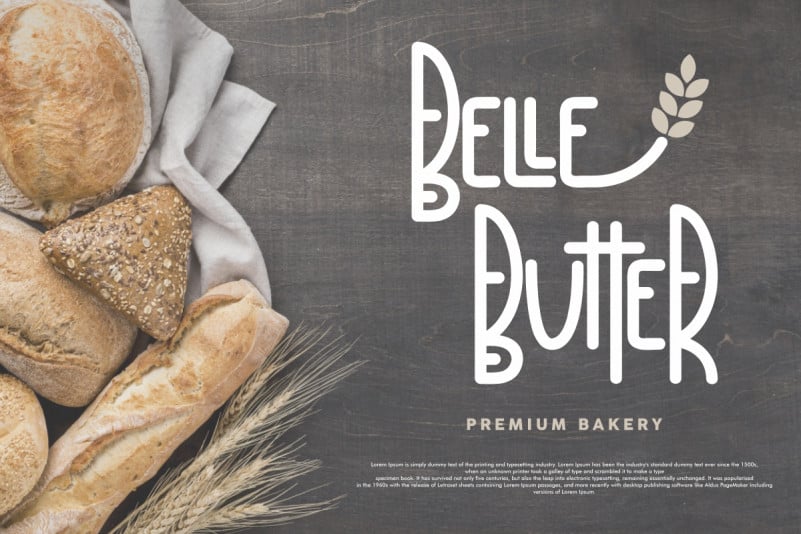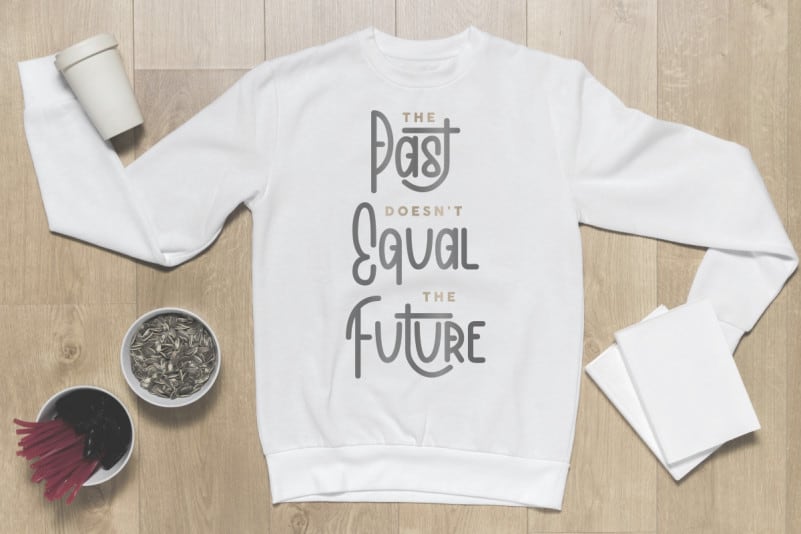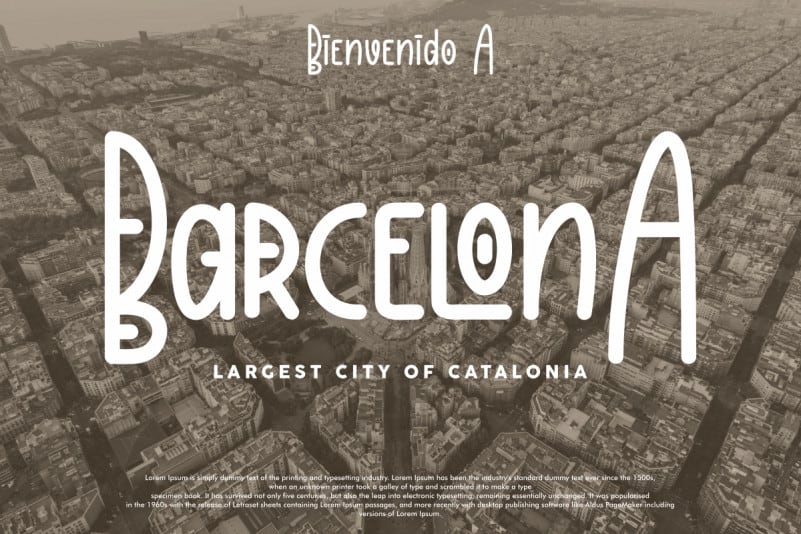
Peanuth Handwritten Font
Peanuth Handwritten Font is a vintage display font with a unique retro style. This font is crafted carefully in every its single scratch, created to look as close to a natural handwritten script so that it can create the perfect combination on each glyph. The characters style of this font is inspired from old centuries with a touch of uniqueness and classic look. In simple words, the fonts are vintage, old, classic and retro.
Peanuth Handwritten Font includes full set of Uppercase and Lowercase Basic Characters, Numerals and Punctuation. Also it contains ligatures and a lot of stylistic alternates characters to perfectly make unique unusual look that add more beautiful and aesthetic fonts to perfect your extraordinary project.
This font will be great for many projects including headlines, logos, branding design, signatures, quotes, flyers, business card, stationery, invitations and more!